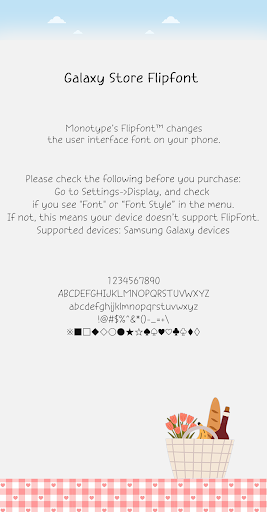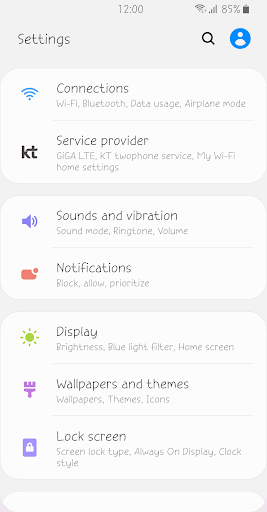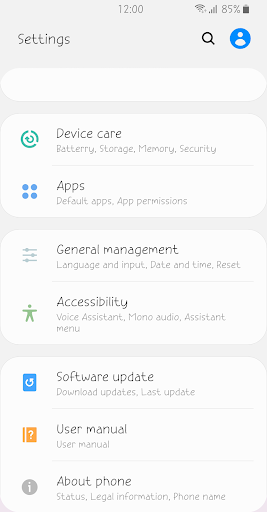
Fine Picnic
This is a script-style font with cute handwriting appeal.
The comfortably written form and stable structure are enough to show pleasure.
It contains a pleasant appearance that gives a new excitement.